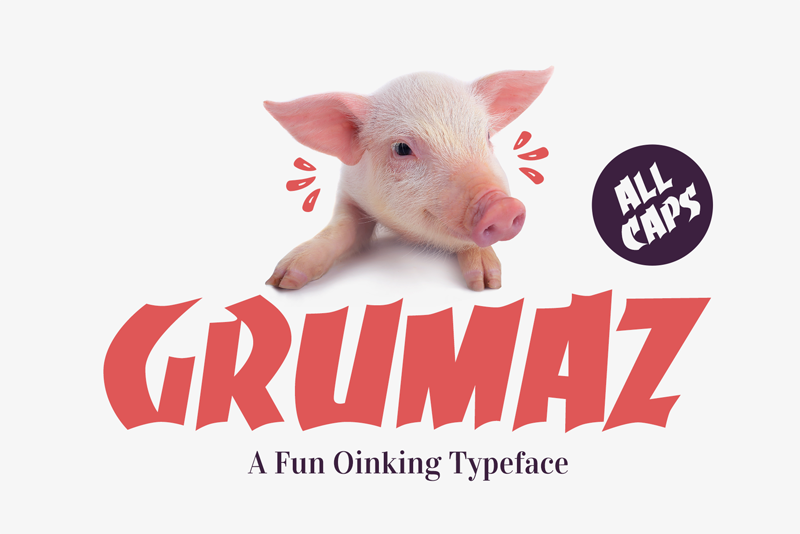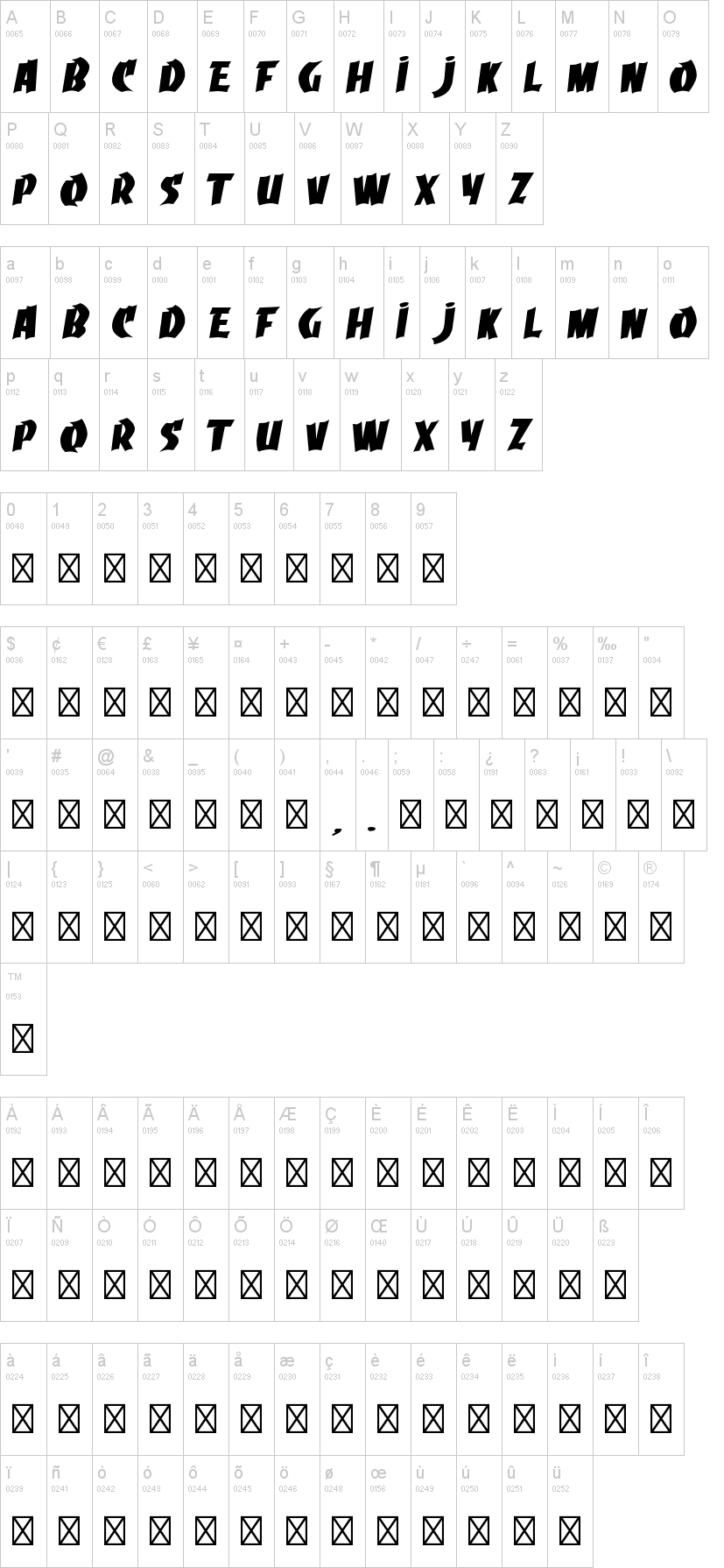
It is a bold and funny display font with a twist. It's a massive all-caps, positively bold yet quite good-humored, suitable for all of your fun projects. The options that "Grumaz" provide are only limited by your imagination.